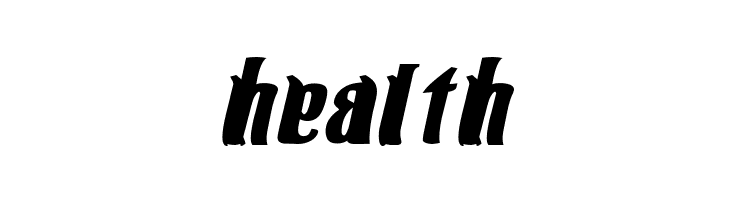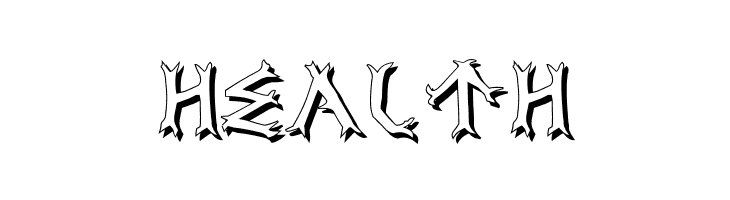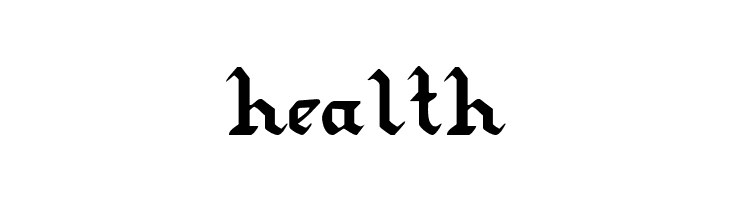
A bold, oblique font with a blackletter influence, featuring sharp angles and dramatic curves.
A bold, blackletter-inspired font with ornate and dramatic styling.
A bold, condensed font with sharp, angular lines and dramatic serifs.
A modern gothic font with sharp serifs and elongated strokes, exuding elegance and mystery.
A dramatic, gothic-style font with sharp, angular lines and intricate design.
A bold, shadowed font with a gothic, angular design.
A bold, blackletter-style font with sharp, angular lines and intricate detailing.